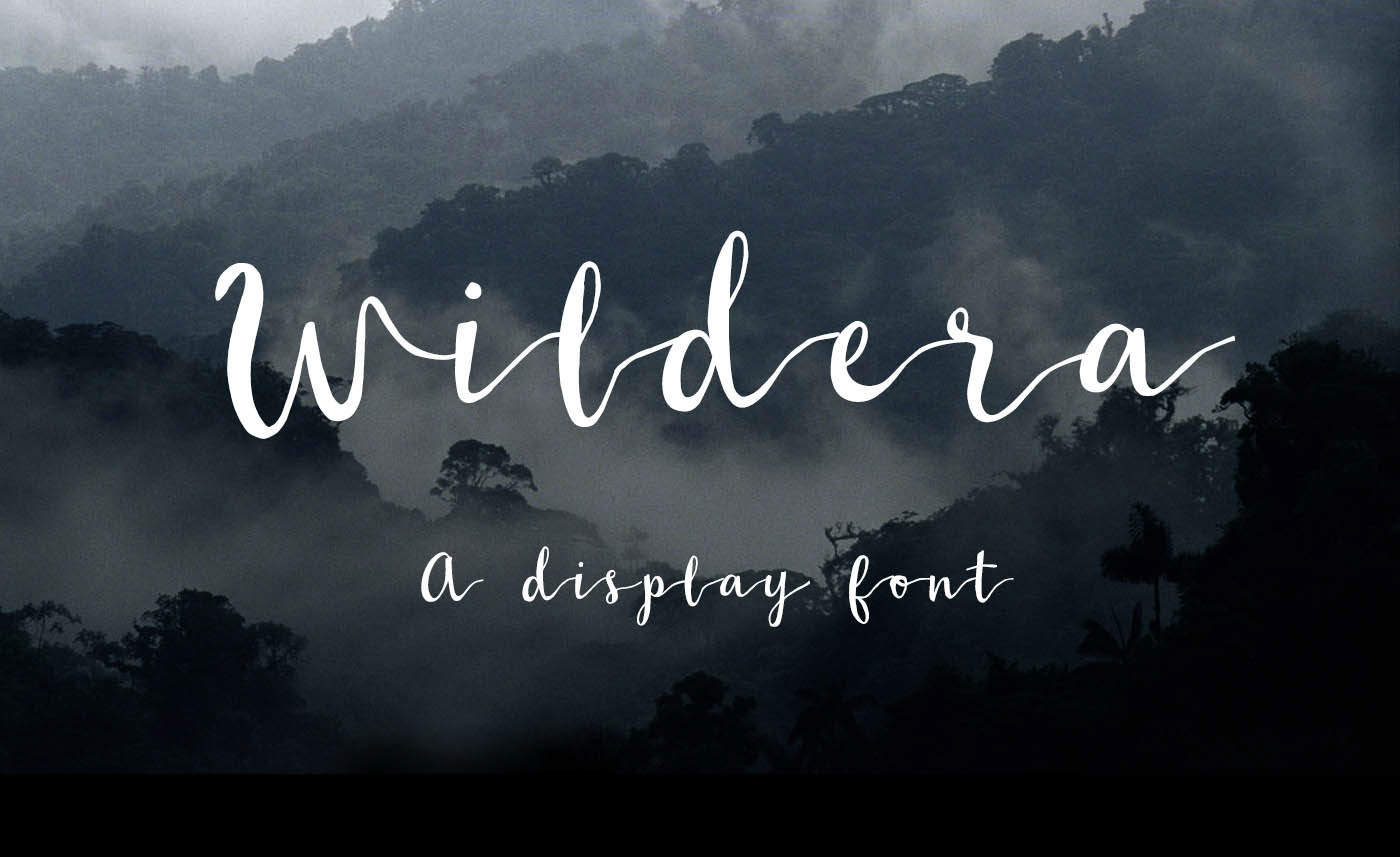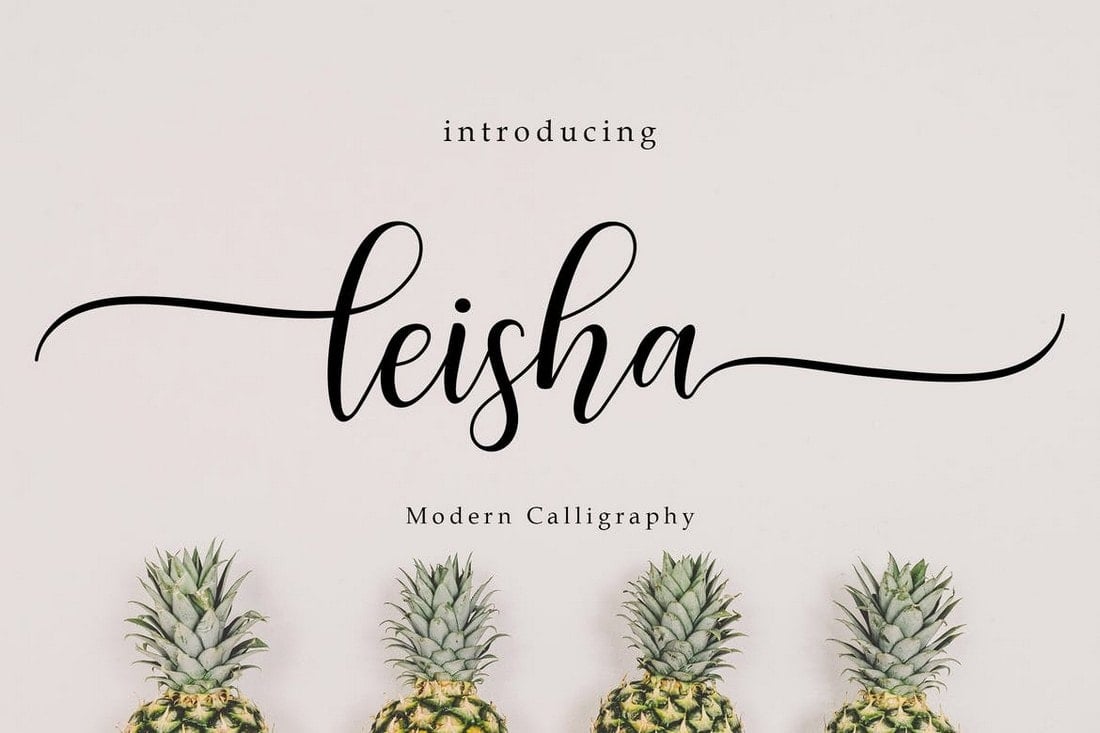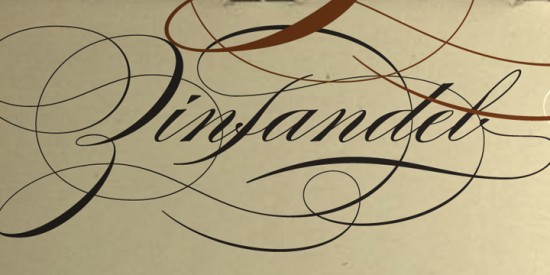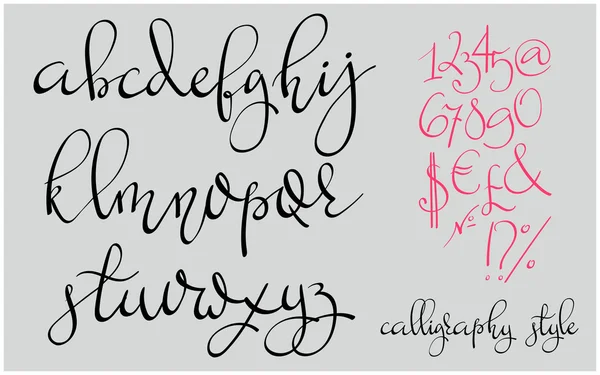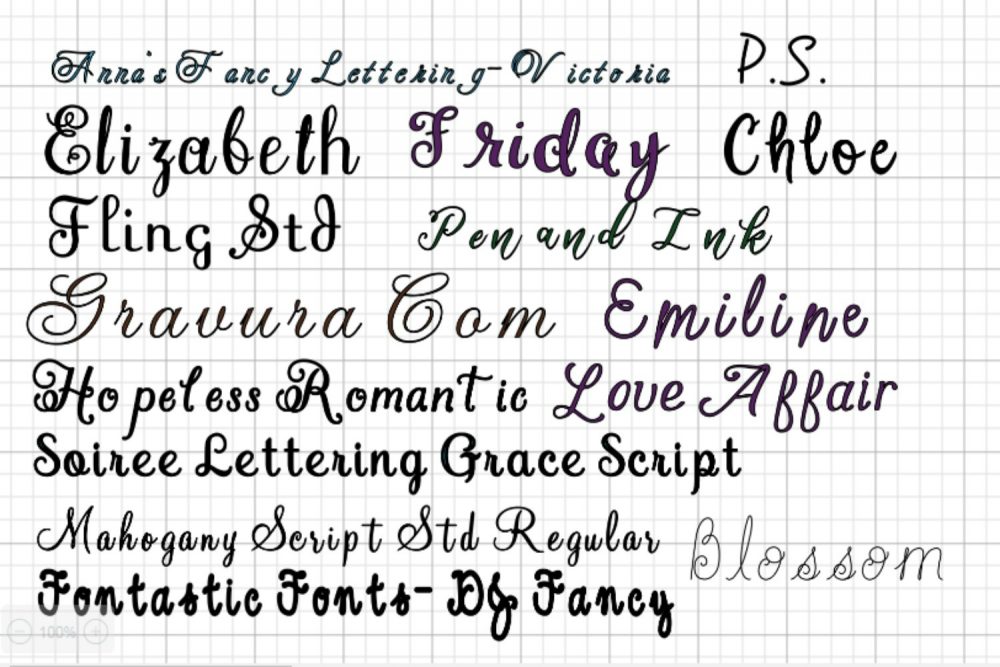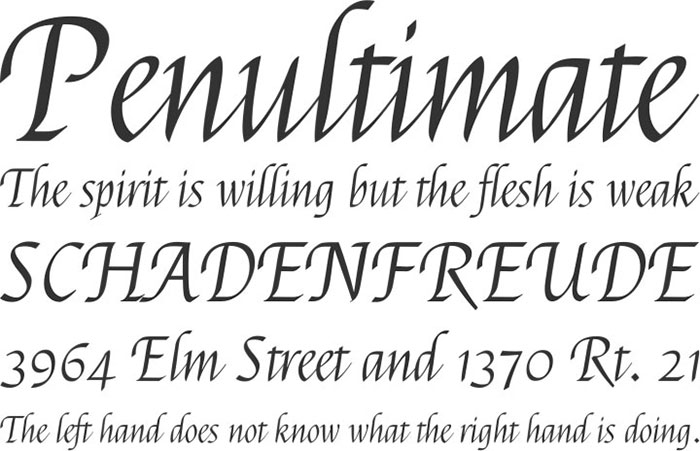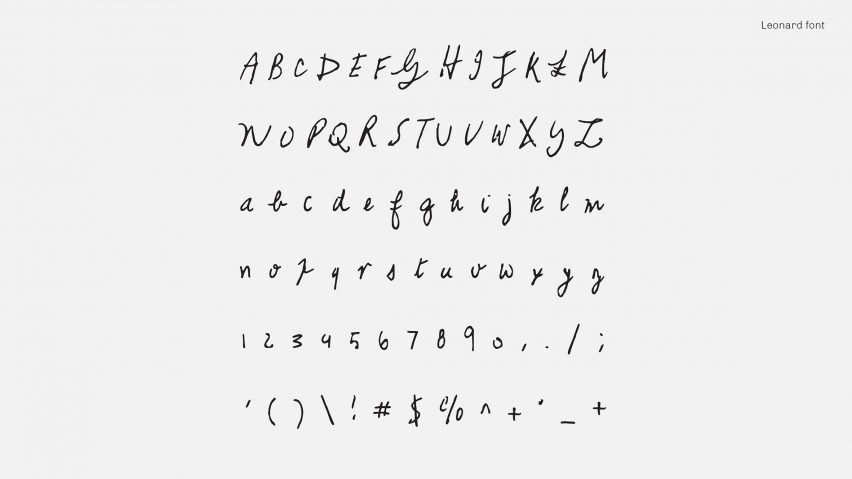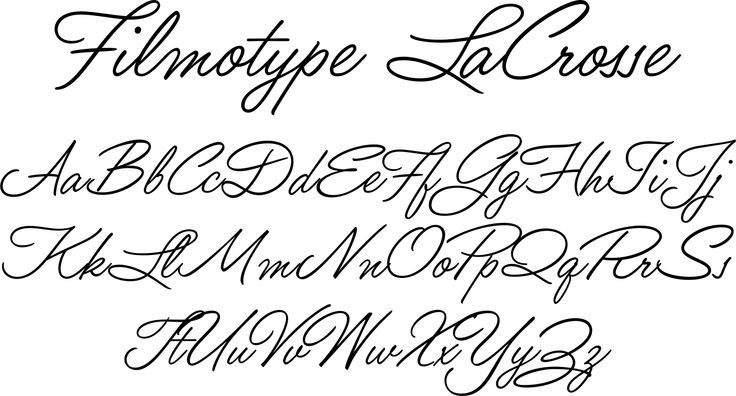
The cursive handwriting style is functional and intended to be used for everyday writing. Collection of fonts for calligraphy cursive.
If you need a classic and clean cursive script font for stationery and.
However for different languages cursive writing can mean differently for example for eastern Asian languages like Chinese cursive writing focuses more on the formation and connectedness of strokes within an individual character while for Latin Cyrillic and. A trio of fonts based on the handwriting of some of Adobes own designers. Every font is free to download.
Bukhari Script font is free to use and its a bold monoline cursive font that you can use on any online or offline project. Bukhari Script Font. Elegant cursive fonts.
These fonts were originally created in 2012 so Acrobat users could sign documents electronically but they were capable of so much more and were happy to share them for. Excerpt from 62 phenomenal handwriting alphabet practice photo inspirations. In the Arabic Latin and Cyrillic alphabets many or all letters in a word are connected sometimes making a word one single complex stroke.
Looking for Cursive Calligraphy fonts. Butterscotch is a beautiful cursive calligraphy alphabet. Big swirly bits huge visual appeal and lots of variety.
Looking for Fancy Cursive fonts. Look at my post. The current Windows 10 Script typefaces include Brush Script MT Edwardian Script ITC Freestyle Script French Script MT Gigi Harlow Solid Italic Kunstler Script Lucida Calligraphy.
Cursive fonts mimic the style of human penmanship where the letters flow together. See more ideas about calligraphy handwriting cursive lettering. Since social media sites dont generally allow fonts it gives the user a huge surprise when they see something new like that.
Sep 21 2018 - Explore Erika Kendalls board Cursive fonts alphabet on Pinterest. Cursive also known as joint writing or running writing or handwriting is any style of penmanship in which the symbols of the language are written in a conjoined andor flowing manner generally for the purpose of making writing faster. Use elegant fonts to make a statement in logos headlines or other short pieces of text.
Cursive fonts simply emulate cursive handwriting in which letters are usually connected in a slanted and flowing manner. The three eponymous styles of the family Ernie Frank and Tiffany each have a unique flavor with its own rhythm and character.